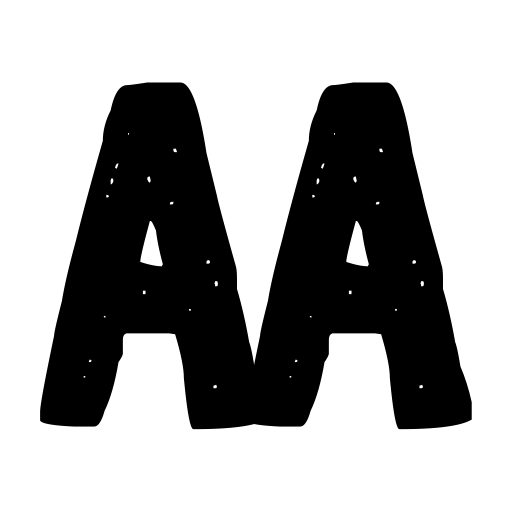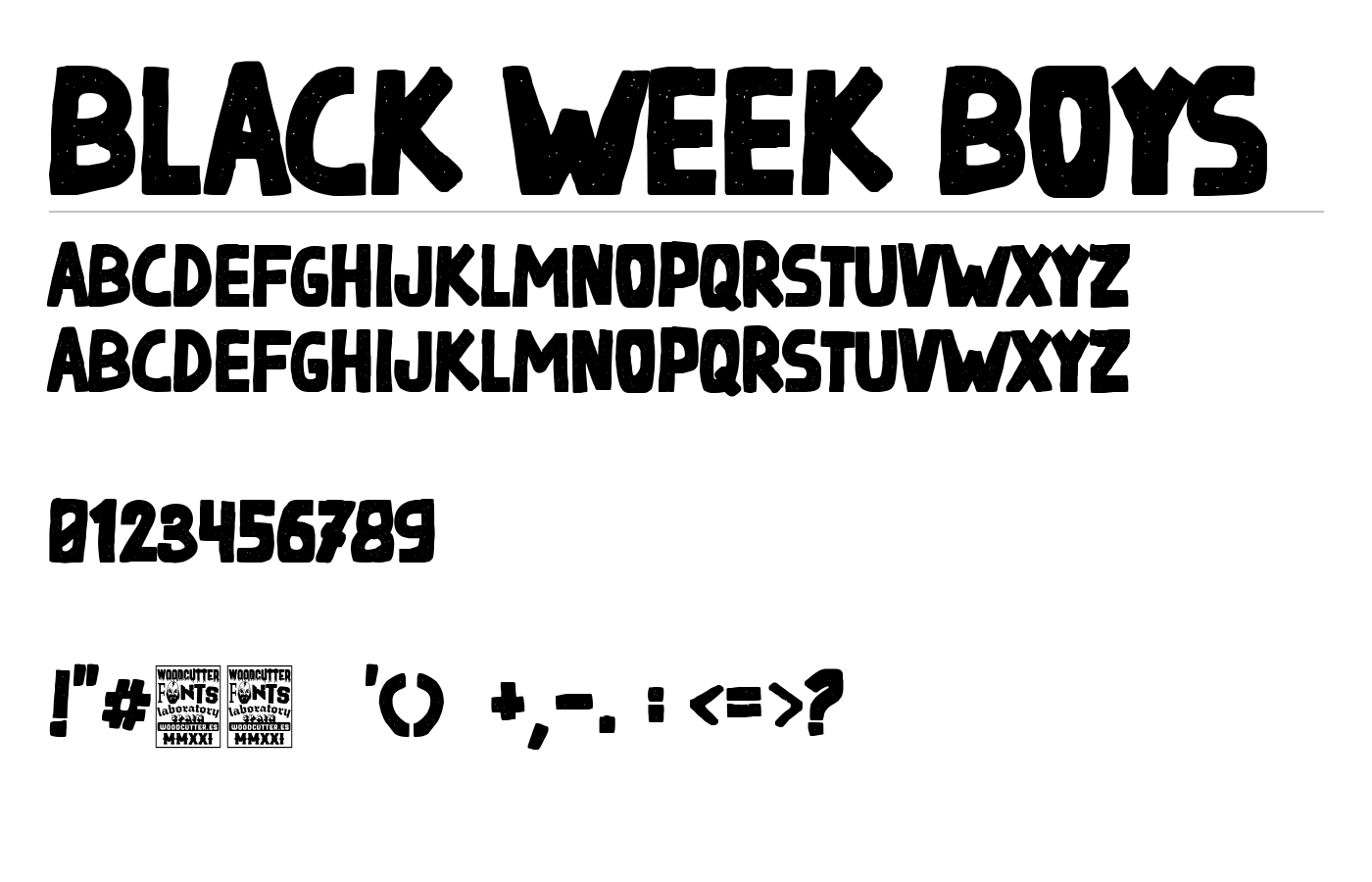
Black Week Boys is a bold, playful sans serif font with a slightly rough, hand-crafted texture that gives it a casual, energetic vibe. Its condensed letterforms and uneven edges make it perfect for fun, eye-catching headlines or branding that wants to feel approachable and dynamic. This font works especially well for posters, packaging, and creative projects that need a strong personality and a touch of whimsy.
Black Week Boys Font
About Black Week Boys Font